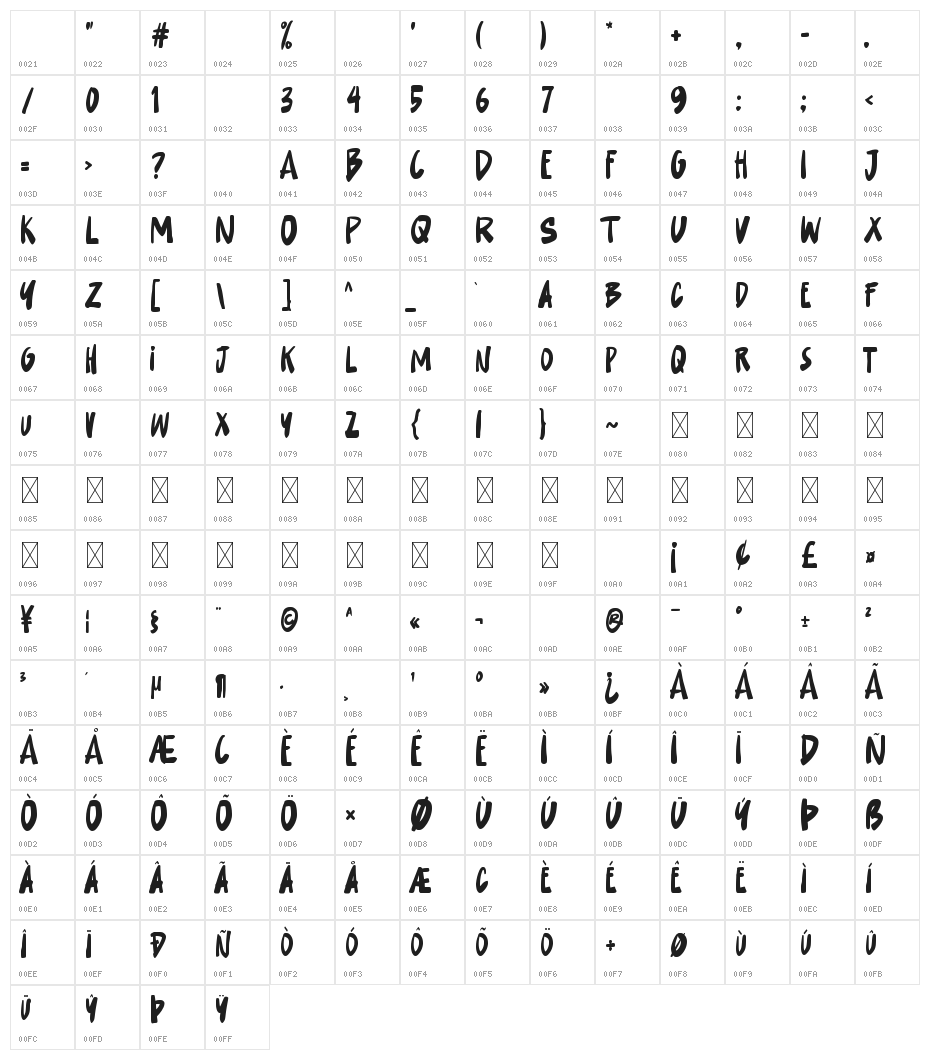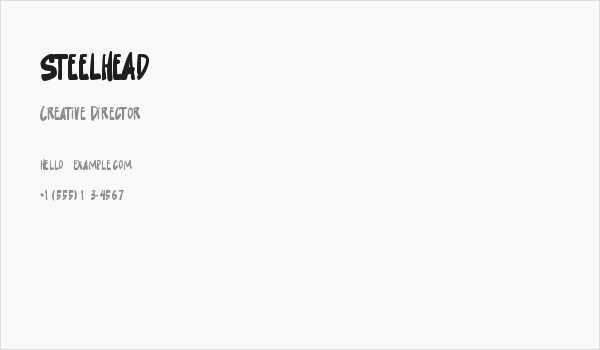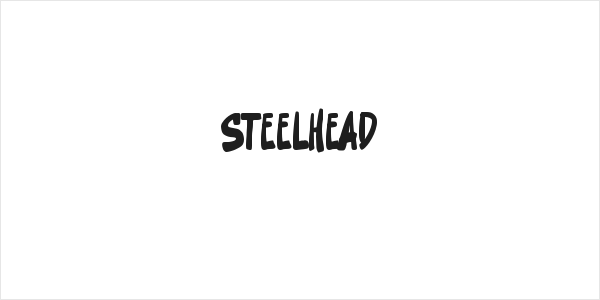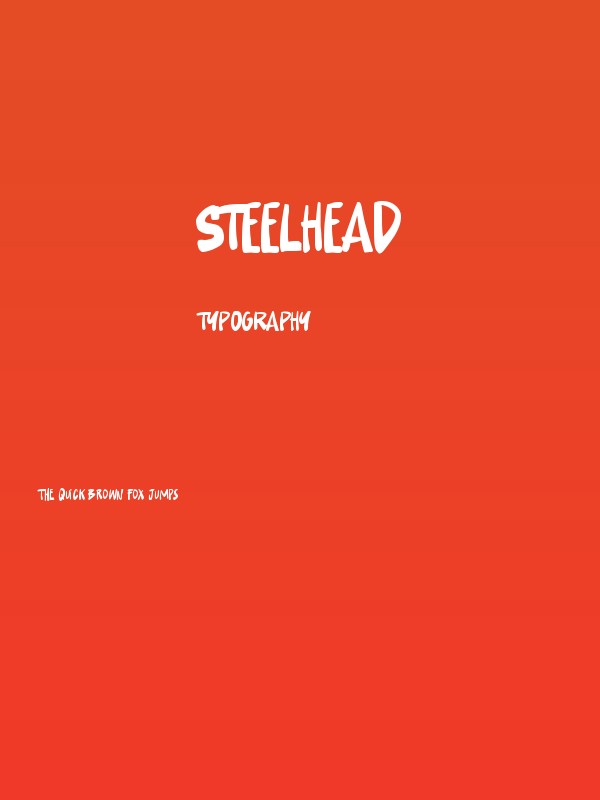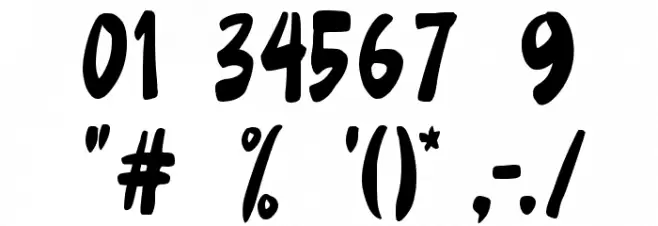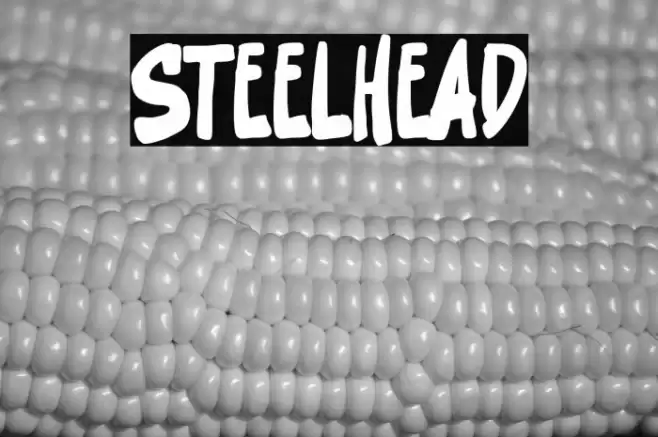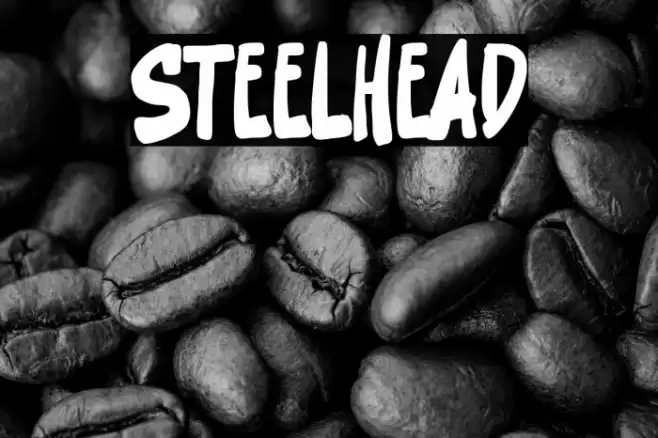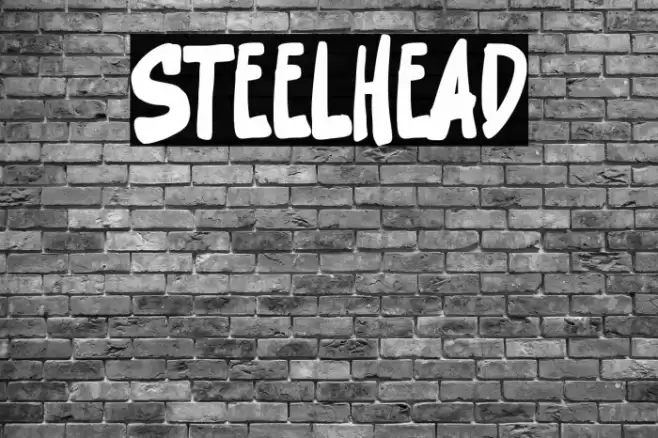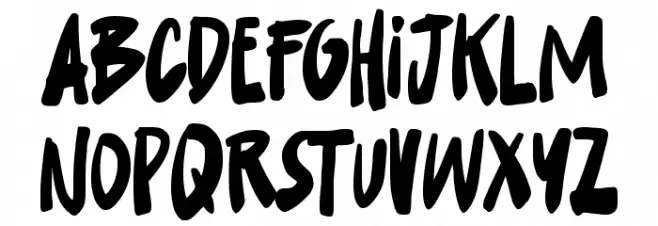
Steelhead Font
Steelhead Description
This font exhibits a bold and dynamic handwritten style, characterized by its thick, expressive strokes and playful curves. The uppercase and lowercase letters maintain a consistent flow, giving a sense of movement and energy. The numbers and special characters complement the alphabet with similar boldness and flair. The overall appearance is casual yet impactful, making it suitable for projects that require a touch of personality and creativity. Its unique style stands out, making it ideal for eye-catching designs.
| Proposed Projects | Ideal for posters, branding, social media graphics, and creative projects that require a personal touch. |